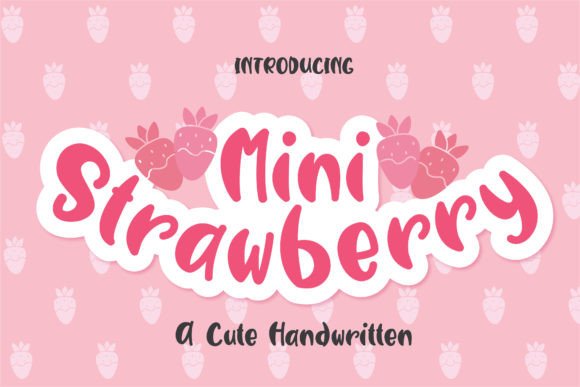
Step into a world of enchanting aesthetics with Mini Strawberry Font, a captivating script font that dances across your designs with a delightful handwritten charm. Its natural flow and unique character bring a touch of playfulness and personality to any project, making it the perfect choice for those seeking a font that speaks volumes.
With Mini Strawberry Font, you'll embark on a creative journey filled with endless possibilities. Its organic curves and whimsical strokes add a touch of magic to logos, branding, invitations, social media posts, and more. Unleash your imagination and let your designs bloom with the beauty of Mini Strawberry Font.
Dive into a sea of creativity, where Mini Strawberry Font becomes your trusty companion. Its versatility knows no bounds, allowing you to effortlessly craft designs that resonate with your audience. Whether you're a seasoned designer or just starting your creative adventure, Mini Strawberry Font will elevate your projects to new heights.
Experience the joy of creating with Mini Strawberry Font, a font that captivates and inspires. Its ability to blend seamlessly with various design styles makes it a true gem in any designer's toolkit. Let your creativity flourish as you witness your designs come to life, infused with the charm and elegance of Mini Strawberry Font.
Don't settle for ordinary; embrace the extraordinary with Mini Strawberry Font. Its unique charm and endless variations will transform your designs into captivating works of art. Let your imagination run wild and create designs that leave a lasting impression.